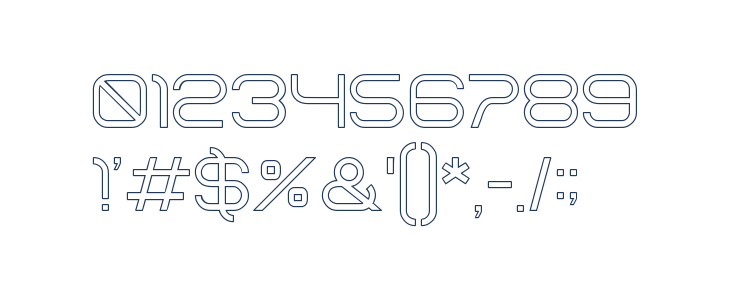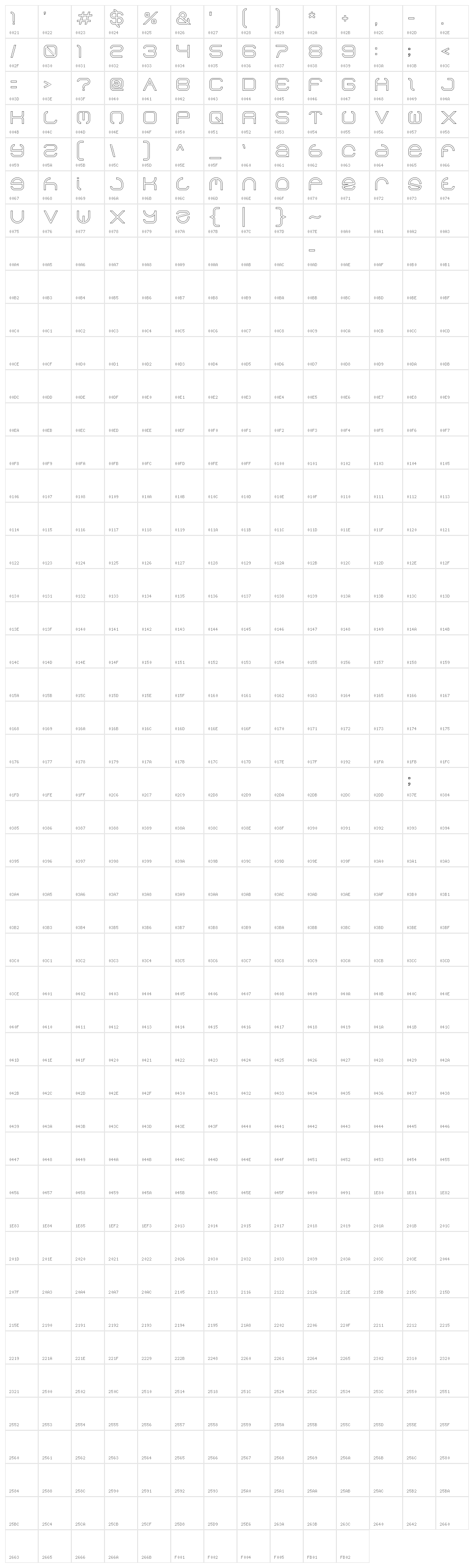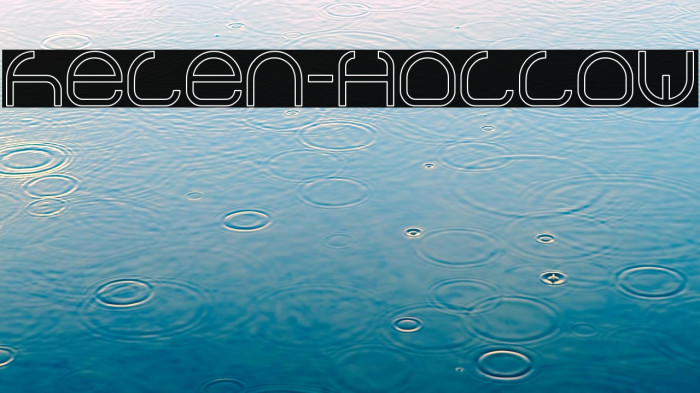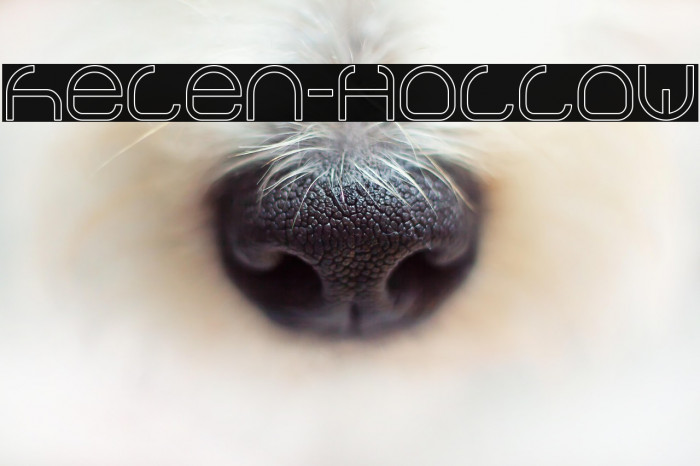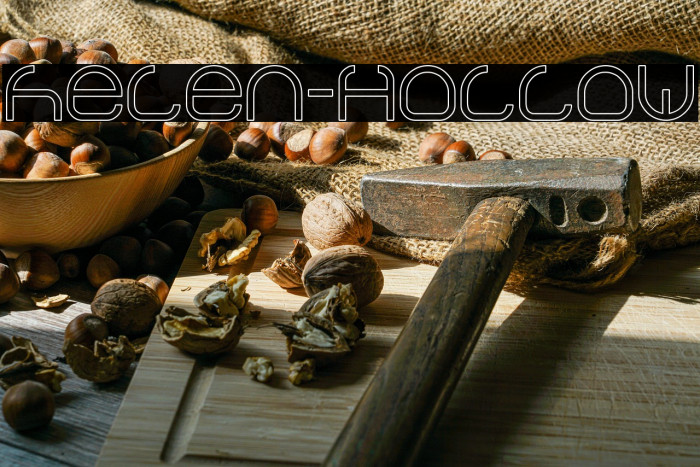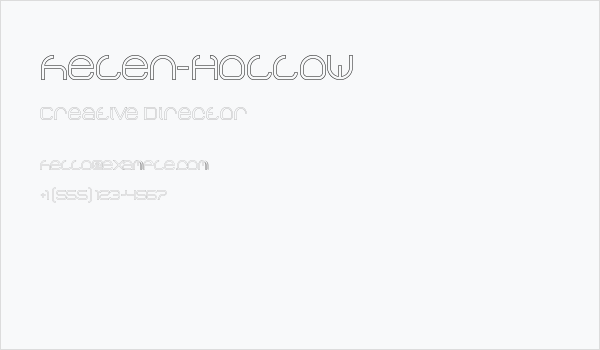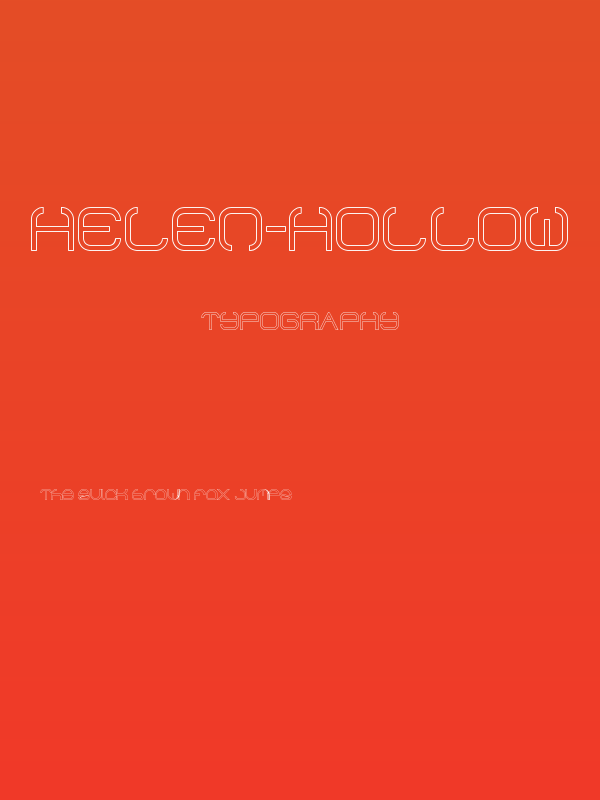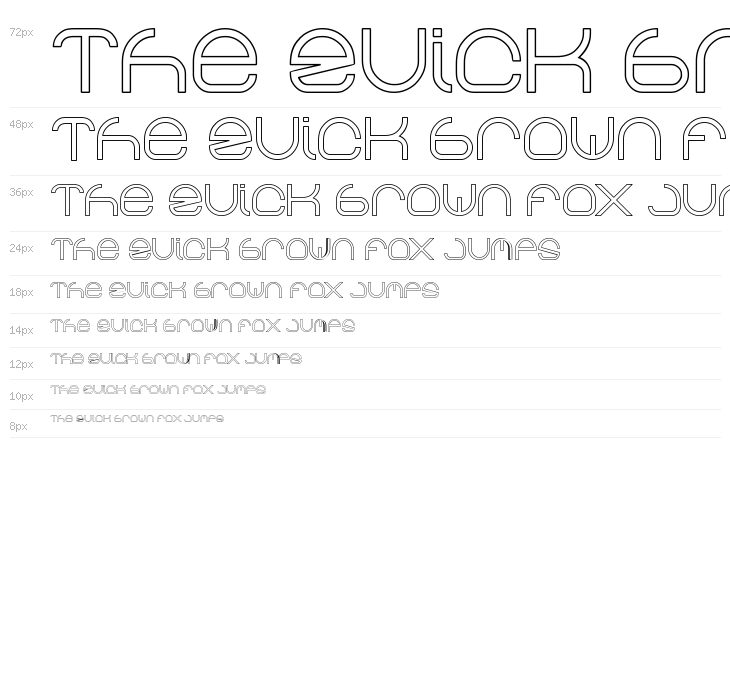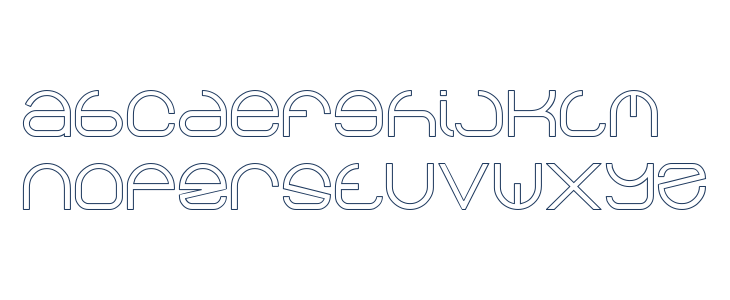
helen-Hollow Font
helen-Hollow Description
This font features a hollow, geometric design with a futuristic and modern aesthetic. The characters are outlined, creating a unique, airy appearance that emphasizes negative space. The uniform line thickness and rounded edges give it a sleek and contemporary look. The uppercase and lowercase letters maintain a consistent style, with a balance between angular and curved elements. Numbers and special characters follow the same design principles, ensuring a cohesive visual identity across all glyphs. This font is ideal for projects that require a modern and innovative touch.